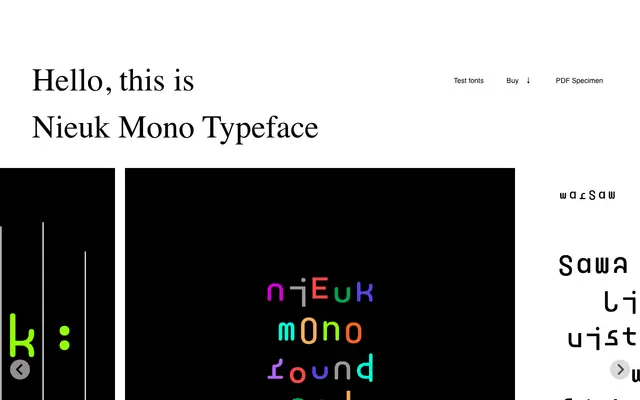
NieukMono
Laïc · Maciej Połczyński · 2023
A single-weight modular monospaced typeface that rotates through three alternate character sets via contextual alternates, creating visual variation as you type.
Designed by Maciej Połczyński and released in 2023, NieukMono is built on a modular construction with three sets of characters that mix dynamically during composition using the Contextual Alternates OpenType feature. The result is a typeface that resists uniformity without sacrificing the fixed-width structure. Its name is drawn from the Polish word for someone who plays around rather than studies properly, a spirit that shapes its loose, exploratory character.
A monospaced typeface built on a modular system with contextual alternates that cycle through three character sets, placing it firmly in the experimental mono category.